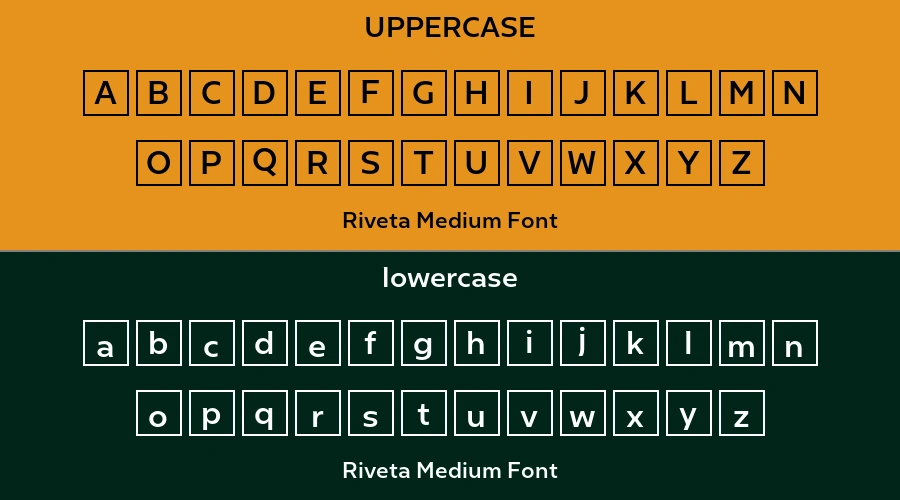
About Riveta Medium Font
Riveta Medium Font represents a sophisticated approach to type design, balancing tapered strokes with durability. Perfect for poster titles, this font family showcases impressive clarity and cultural authenticity throughout its character set. Designers appreciate its versatility and reliability.
Designers will appreciate nuanced touches including monoline strokes and arrow sets, adding sophistication to any project. These features become apparent in hero imagery, where kerning accuracy matters most. The careful treatment of letterfit and technical tradition ensures optimal performance.